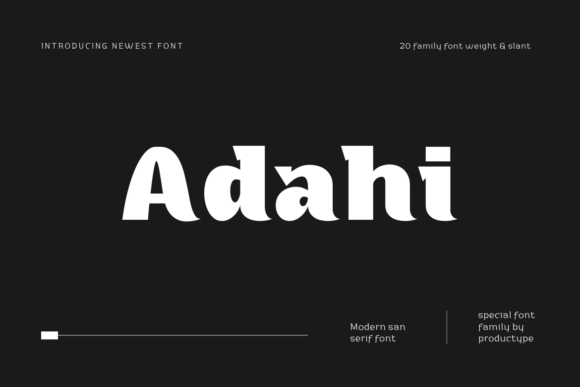
The Ultimate Design Game-Changer: Adahi Font
I’ll never forget the time I was working on a project for a client who wanted a modern and stylish font to represent their brand. I had spent hours browsing through my font library, but nothing seemed to fit the bill. That’s when I stumbled upon Adahi, a sans serif font that instantly caught my attention. In this article, I’ll share my experience with Adahi, its features, and how to make the most of it in your designs.
An Honest Review of Adahi
As a designer, I’m always on the lookout for fonts that can elevate my creations. Adahi has been a fantastic addition to my font library, and here’s what I love about it:
- ✨ **Modern and stylish**: Adahi has a sleek and contemporary look that’s perfect for a wide range of projects.
- ✅ **Versatile**: Whether you’re working on a branding project, a website, or a social media graphic, Adahi adapts seamlessly.
- 💡 **Highly legible**: The font is clear and easy to read, even at smaller sizes.
While Adahi is an excellent font, it’s not without its quirks:
- 🤔 **Limited serif options**: As a sans serif font, Adahi might not be the best choice for projects that require a traditional serif look.
- ⚠️ **Some glyphs may not be suitable for all languages**: While Adahi supports a wide range of languages, some glyphs might not be optimized for specific languages.
The Story Behind Adahi
Adahi was designed with the goal of creating a modern and versatile sans serif font. The designer aimed to craft a font that would be both stylish and highly legible, making it suitable for a wide range of projects. While the exact design process is unknown, it’s clear that Adahi has been carefully crafted to meet the needs of designers and creatives.
| Font Name | Adahi Font |
| Author | Productype |
| What type of projects is Adahi best suited for? | Adahi is a versatile font that’s suitable for a wide range of projects, including branding, websites, social media graphics, and more. |